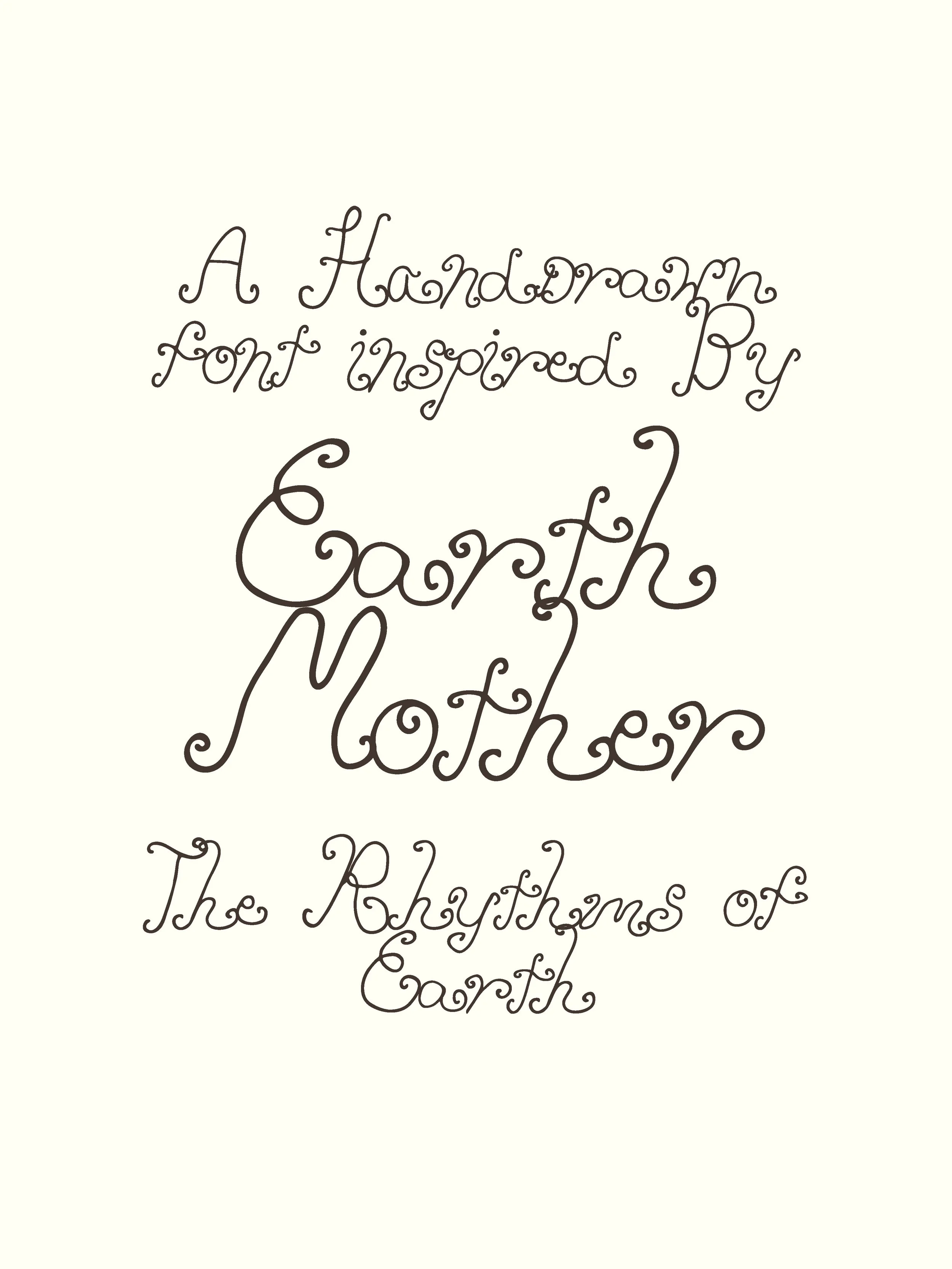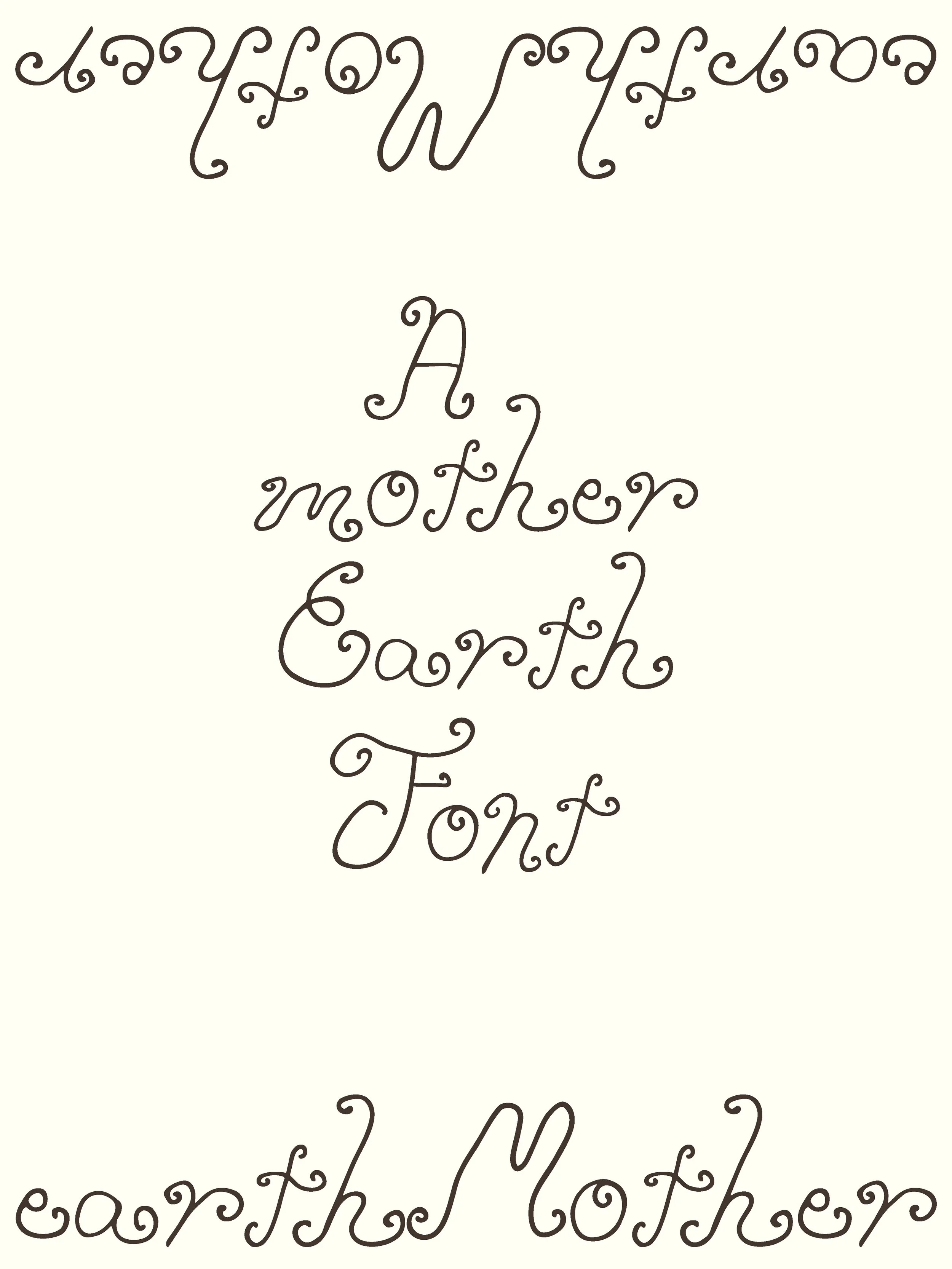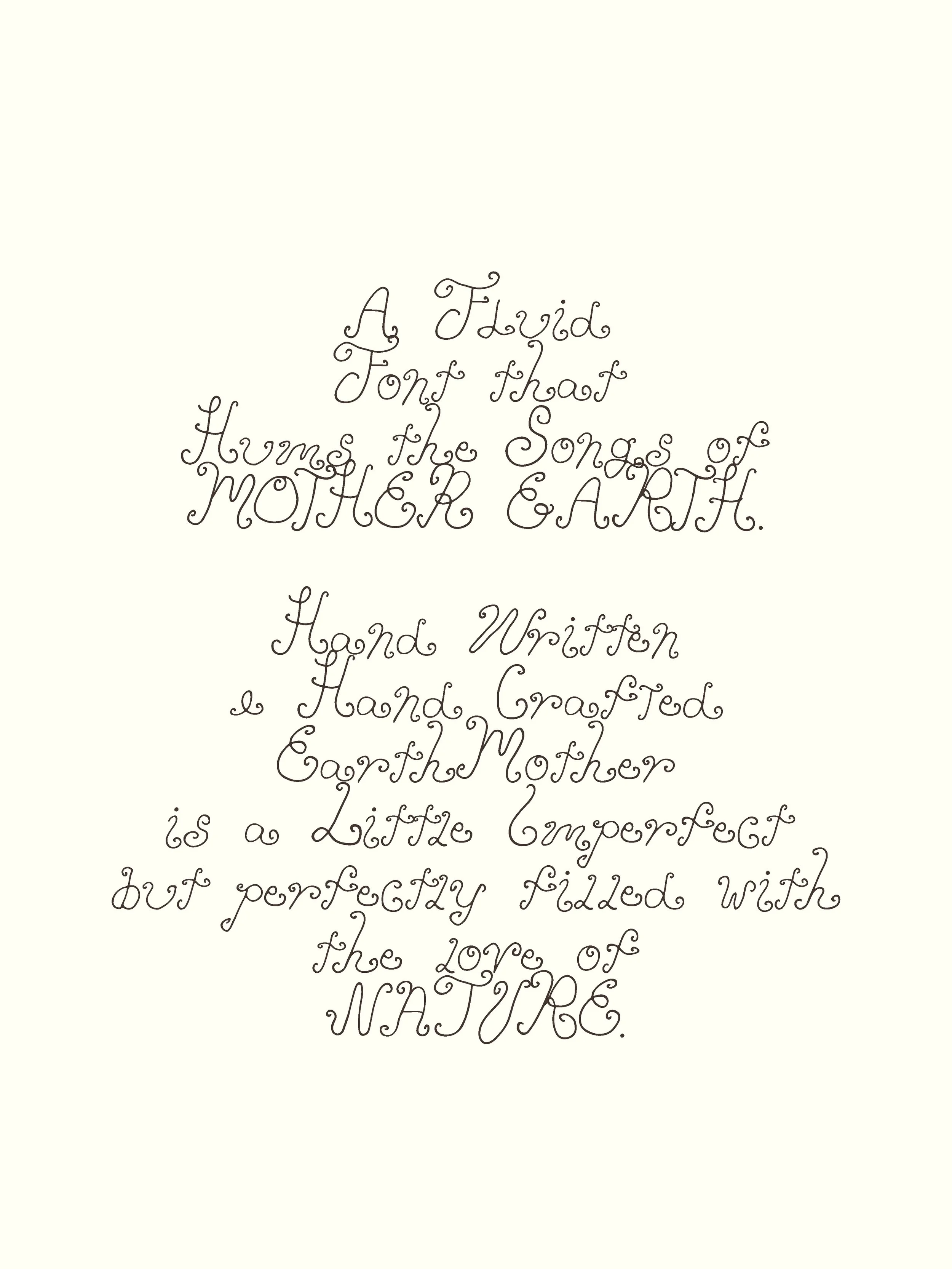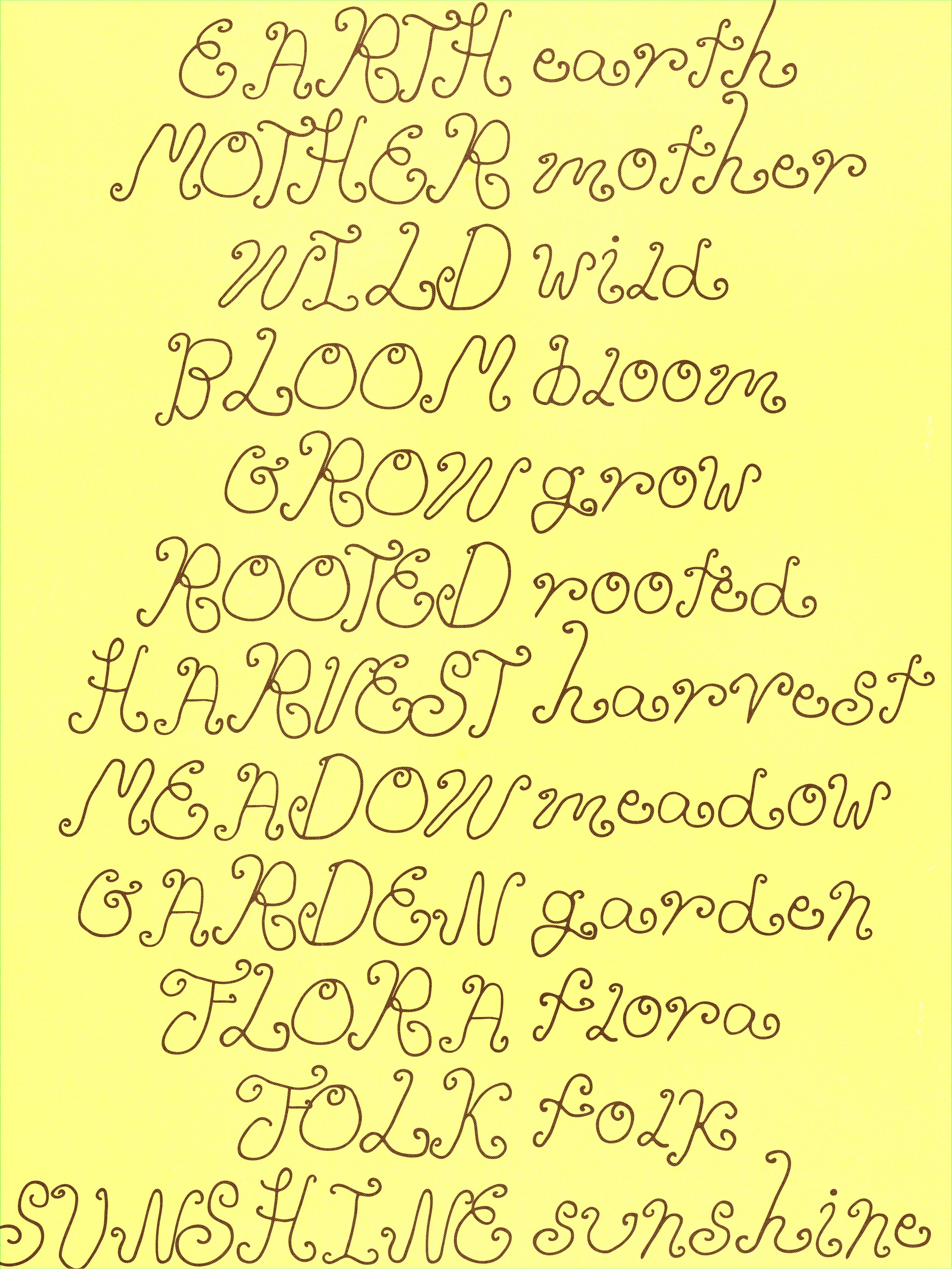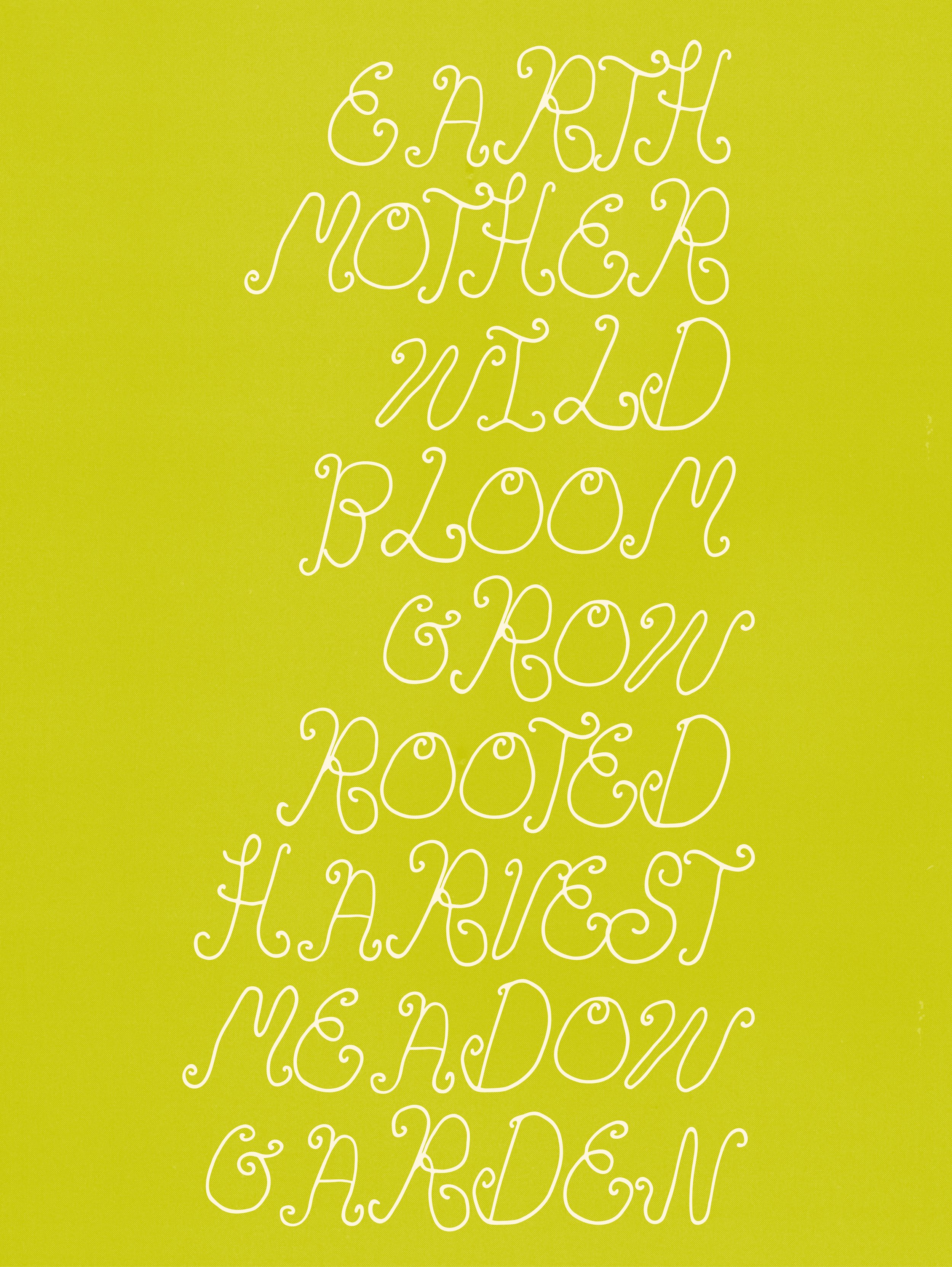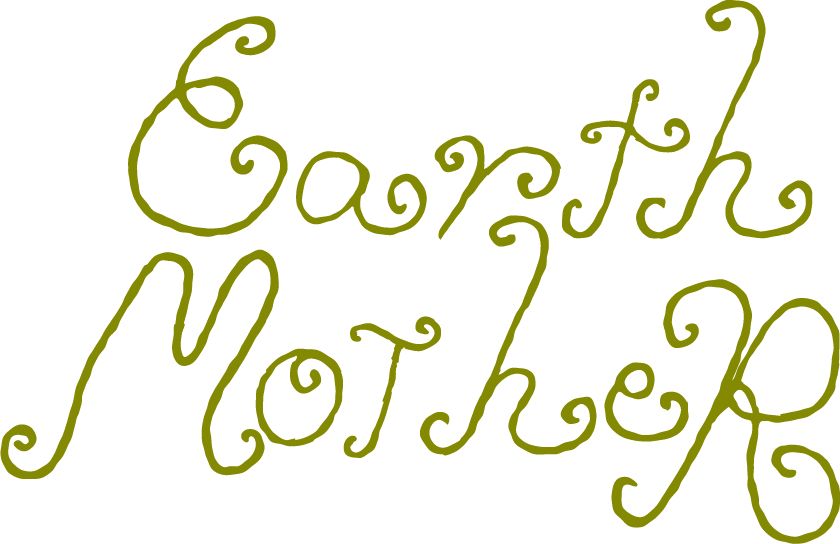
Earth Mother is a hand-drawn, hand-crafted typeface inspired by the rhythms of nature, the spirit of Mother Earth, and vintage hippie music flyers.
Rooted in irregularity and organic form, it draws from bees, spindly wildflowers, ocean waves, and overgrown gardens — resulting in a typeface that feels whimsical, romantic, and quietly expressive, while still holding a modern edge.
With both uppercase and lowercase characters, Earth Mother is designed for creative play. The letterforms flow freely, allowing you to experiment with spacing, overlap, and composition — pulling letters close together to create new growth, movement, and unexpected connections.
Branding & logos
Nature-inspired projects & florists
Weddings & romantic stationery
Music posters & vintage-inspired flyers
Children’s books & storytelling
Packaging & artisanal products
Editorial layouts & creative direction
Social media graphics & digital campaigns
Uppercase A–Z (with alternates)
Lowercase a–z (with alternates)
Numbers 0–9
Basic punctuation
A range of alternates allows you to create more bespoke, expressive typography — perfect for logos, titles, and more considered body text where you want a sense of individuality.